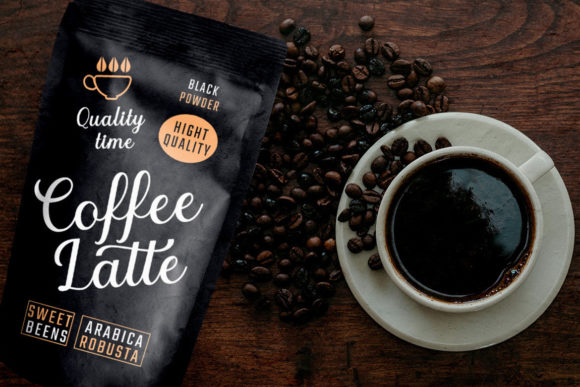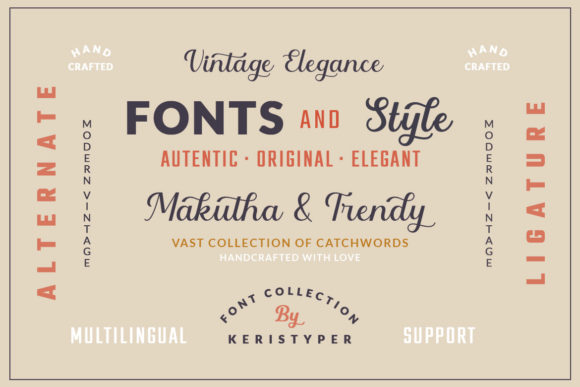
Makutha Font
db-ku.com - Script & Handwritten -- Makutha is an elegant script font. Designed primarily as a captivating handcraft with style, this typeface is easy on the eyes and excels at creating captivating headlines or branding.